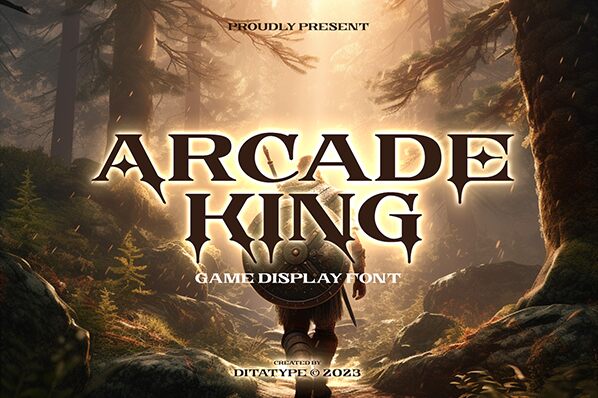
Arcade King font is a Ditatype modern take on gothic fonts with expanded width and pronounced thickness. Designed to be both elegant and formal, the bold font is perfect for rebranding businesses that want to stand out among competitors while keeping a traditional look. Its historic aspect comes from being inspired by time-honored calligraphic marks made by brushes in ancient times.
Let loose your creativity using these allcaps in designs like logos, titles, posters, signs, packaging ideas, book covers, illustrations as well as many more options. Explore ways you can best use this free gothic font.